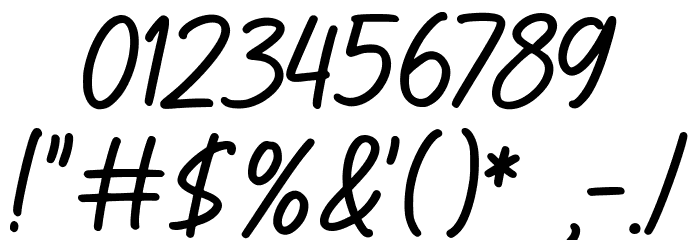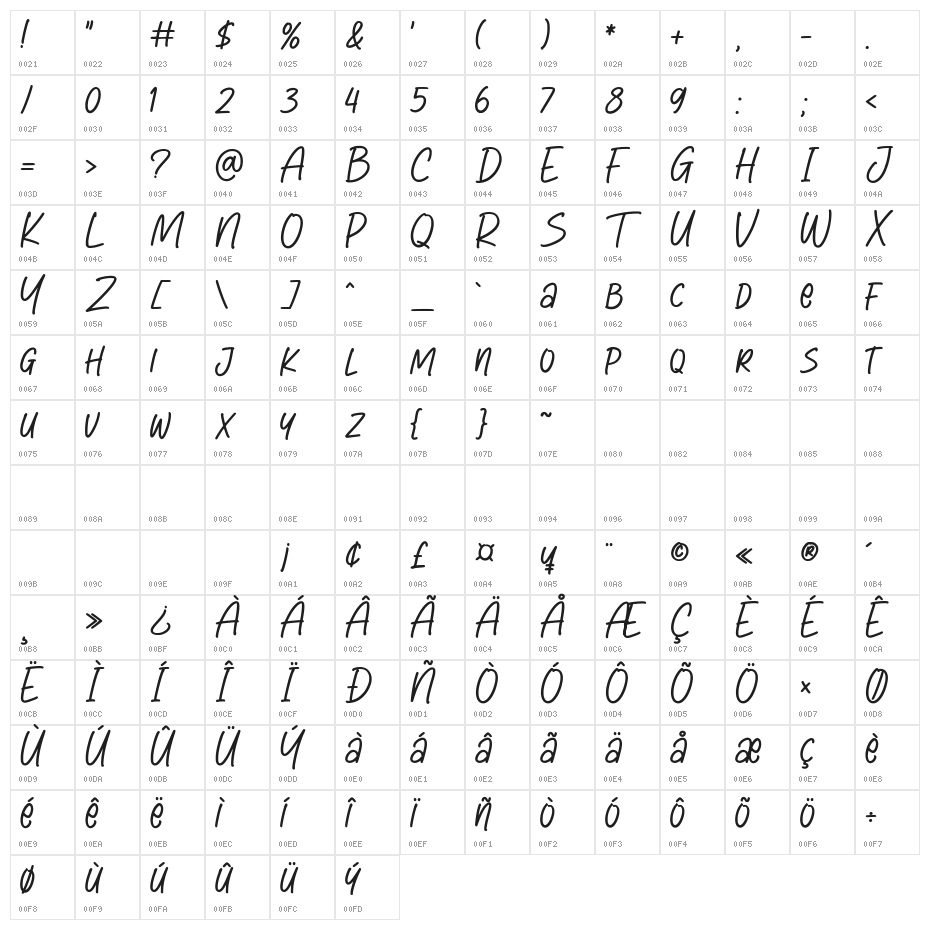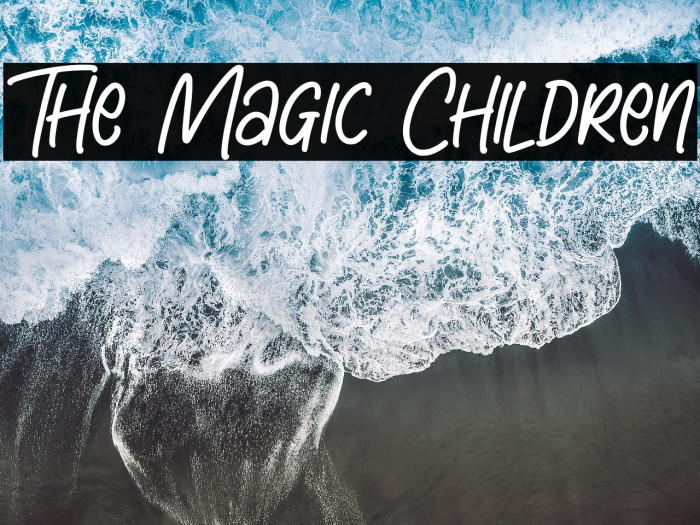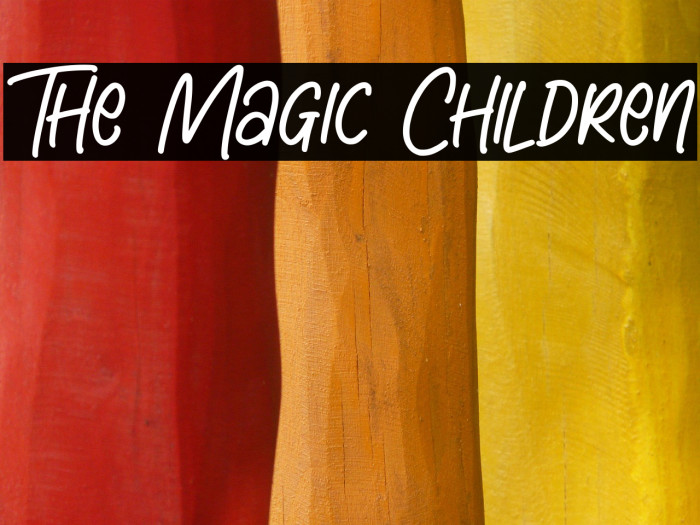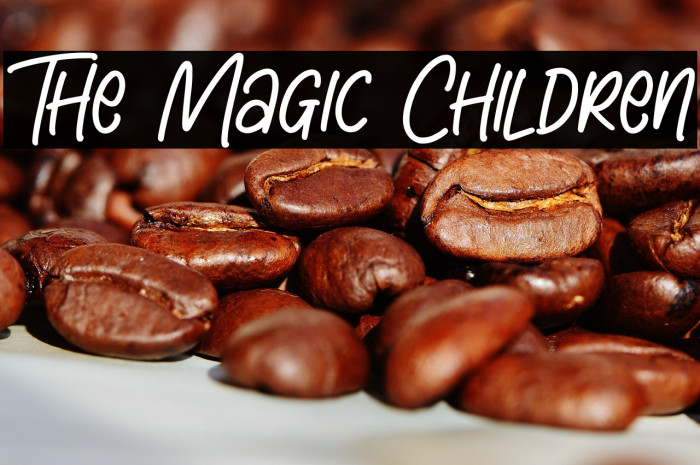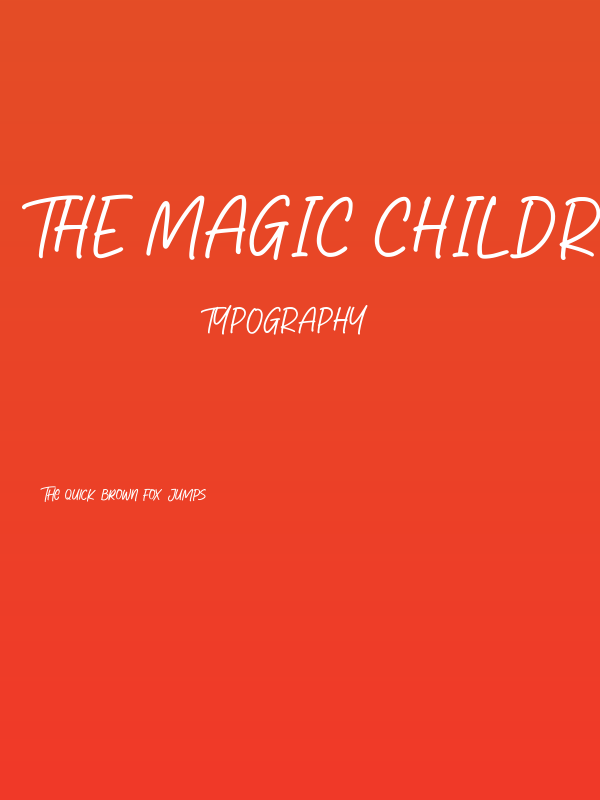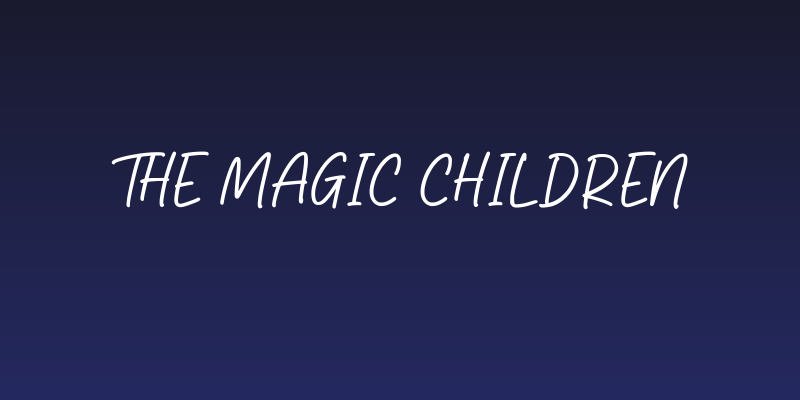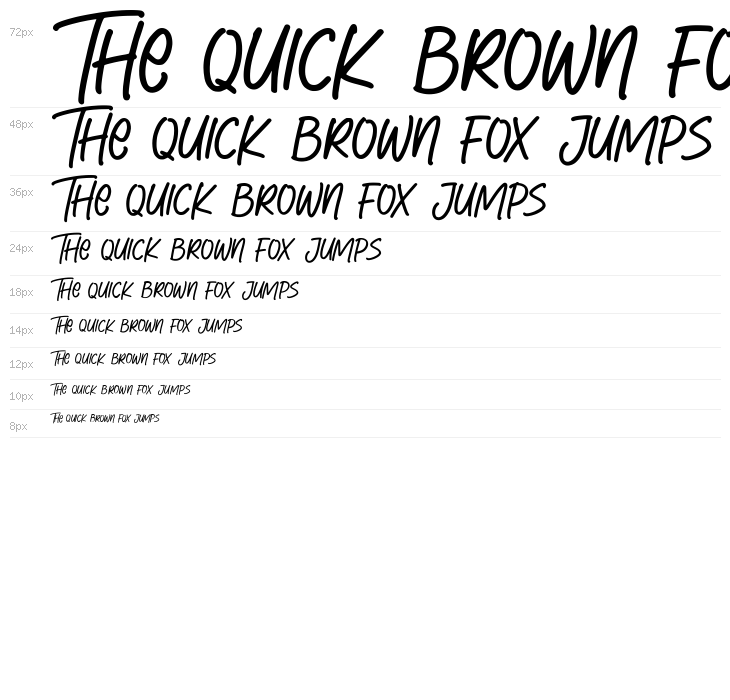
The Magic Children Font
The Magic Children Description
This font features a lively and dynamic handwritten style, characterized by its fluid and slightly slanted letterforms. The uppercase letters are bold and confident, while the lowercase letters maintain a consistent flow, giving the text a cohesive appearance. The numerals are clear and easily distinguishable, complementing the overall aesthetic. Special characters are thoughtfully designed to match the playful yet sophisticated tone of the font. The strokes are smooth and consistent, providing a sense of movement and energy. This font is versatile, suitable for a range of creative projects that require a personal touch.
| Proposed Projects | Ideal for greeting cards, invitations, branding, and social media graphics. |